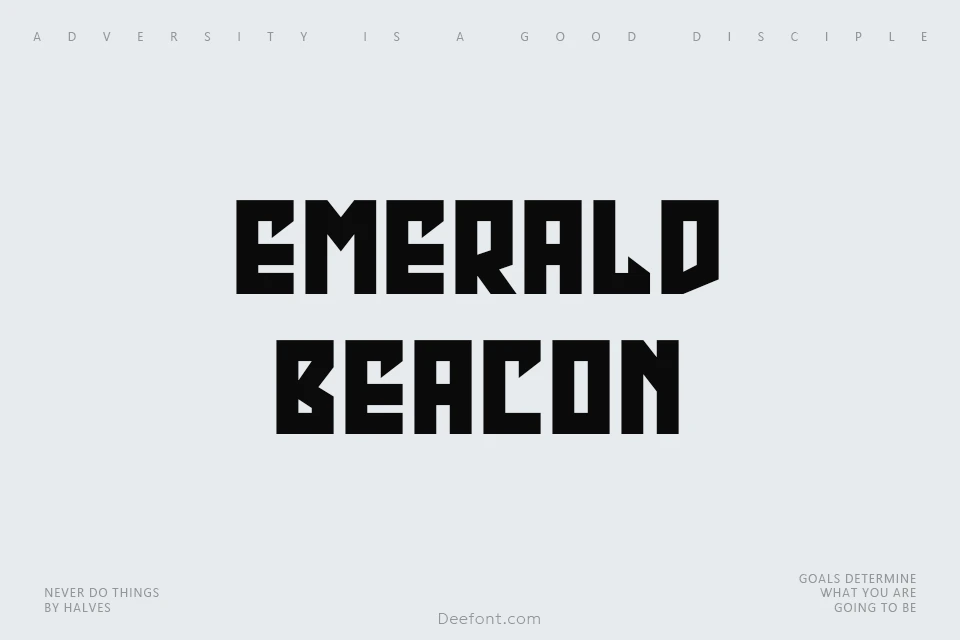
Emerald Beacon Font Family
Emerald Beacon Font Family is a bold, geometric typeface designed by Daniel Zadorozny of Iconian Fonts. The font features sharp angles and a blocky appearance, creating a striking futuristic aesthetic. Its characters maintain a consistent design with strong presence, making it perfect for modern graphic design projects. The font family includes 21 different styles, ranging from regular to outline, italic, gradient, and 3D variations. Emerald Beacon is particularly well-suited for video game titles, sci-fi movie posters, tech branding, and contemporary design work where a strong, edgy look is desired. The font is free for personal use, while commercial use requires a donation to the designer.